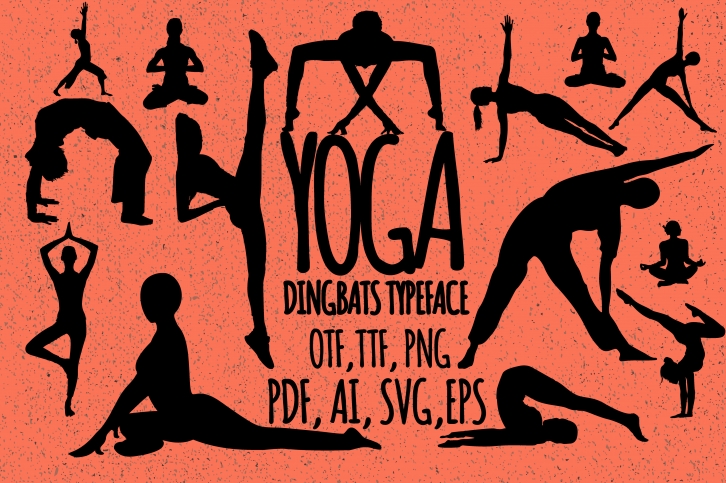
Yoga is an incredibly original and cool dingbats font. No matter the topic, this font will be an incredible asset to your fonts’ library, as it has the potential to elevate any creation.